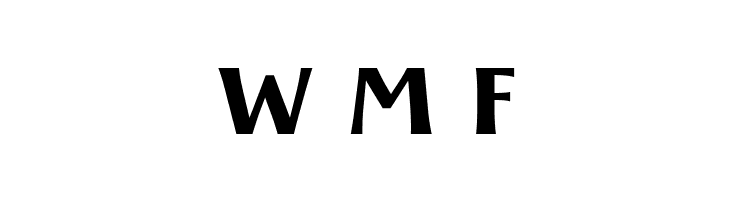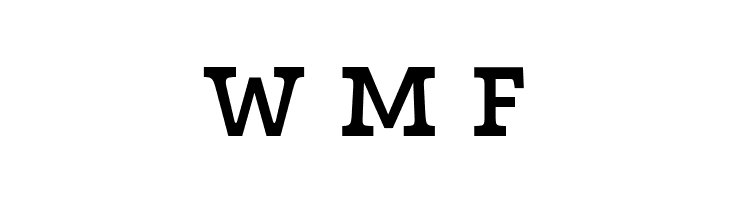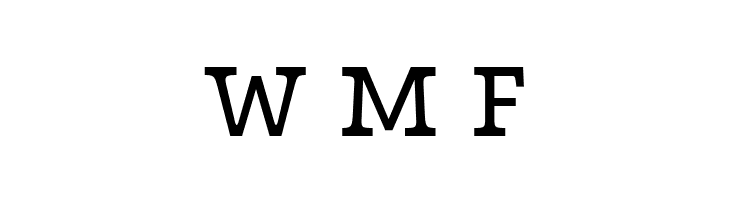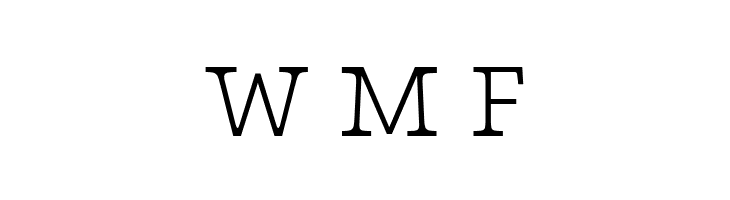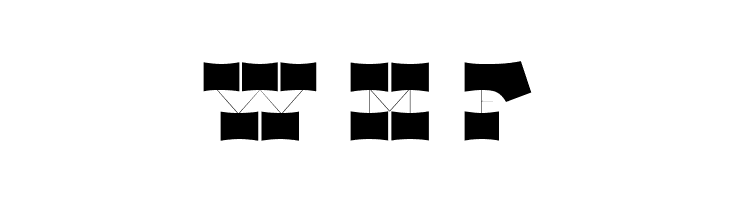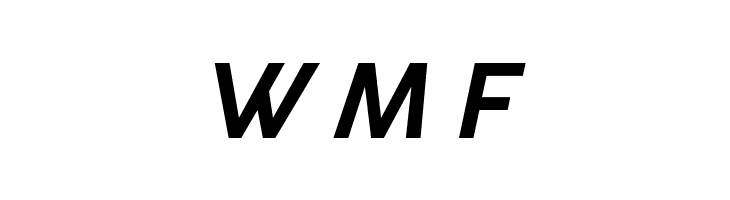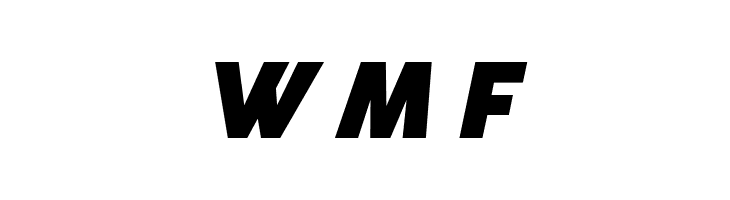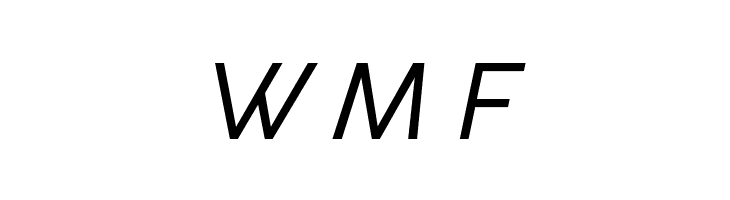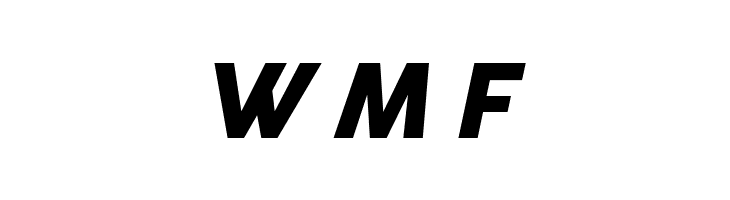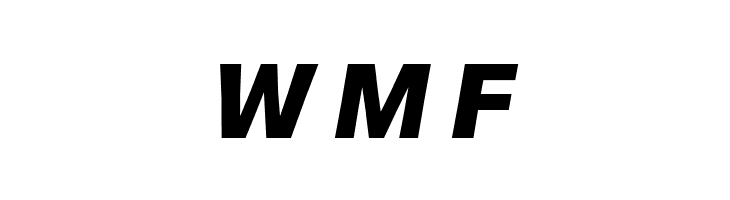
A playful and bold sans-serif font with dynamic curves and angles.
A bold, playful font with exaggerated curves and angles, ideal for attention-grabbing designs.
A bold, italic font with a dynamic and impactful style.
A bold, modern font with thick, uniform strokes and a strong presence.
A sleek, modern italic font with smooth curves and elongated letterforms.
A bold, modern sans-serif font with strong, uniform strokes.
A modern, italic font with bold, slightly condensed characters and medium contrast.
A sleek, thin, and italicized modern font with elegant elongated characters.
A bold, modern typeface with clean, geometric lines and rounded edges.
A bold, italicized font with thick strokes and a modern, impactful style.
A bold, italic font with a modern and dynamic style.
A thin, geometric font with a modern and minimalist design.
A modern, light sans-serif font with clean lines and balanced spacing.
A modern, geometric sans-serif font with a clean and balanced design.
A modern, italic font with bold, condensed characters and medium contrast.
A bold, italic sans-serif font with a modern and dynamic style.
A bold, heavy font with thick strokes and tight spacing.
A bold, high-contrast serif font with a modern yet classic appeal.
A sleek, elegant font with thin, elongated strokes and a refined appearance.
A classic serif font with elegant, thin strokes and a refined appearance.
A bold, modern font with strong, thick strokes and a solid structure.
A modern serif font with classic elements and a versatile design.
A clean, elegant font with thin strokes and a modern, sophisticated style.
A bold slab serif font with medium contrast and a modern yet traditional style.
A clean, modern font with elegant curves and balanced proportions.
A bold, strong font with thick strokes and a commanding presence.
A bold, modern font with strong strokes and a vintage touch.
A sleek, modern font with thin strokes and a slight slant for a dynamic look.
A bold, modern sans-serif font with strong, clean lines and excellent readability.
A clean, modern font with uniform strokes and balanced spacing.
A modern, bold, and italicized typeface with consistent stroke thickness.
A bold, modern sans-serif font with a strong, geometric design.
A sleek, modern sans-serif font with a light, italic style.